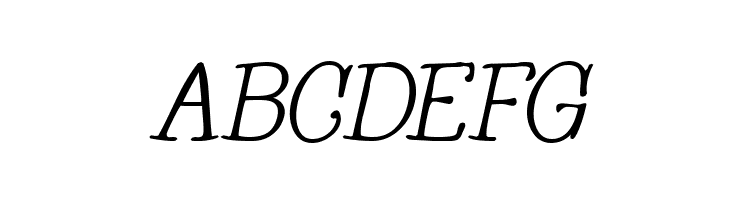
BACK TO SCHOOL PERSONAL USE Regular Font
- Font: BACK TO SCHOOL PERSONAL USE Regular
A playful, italic handwritten font with smooth strokes and moderate contrast.